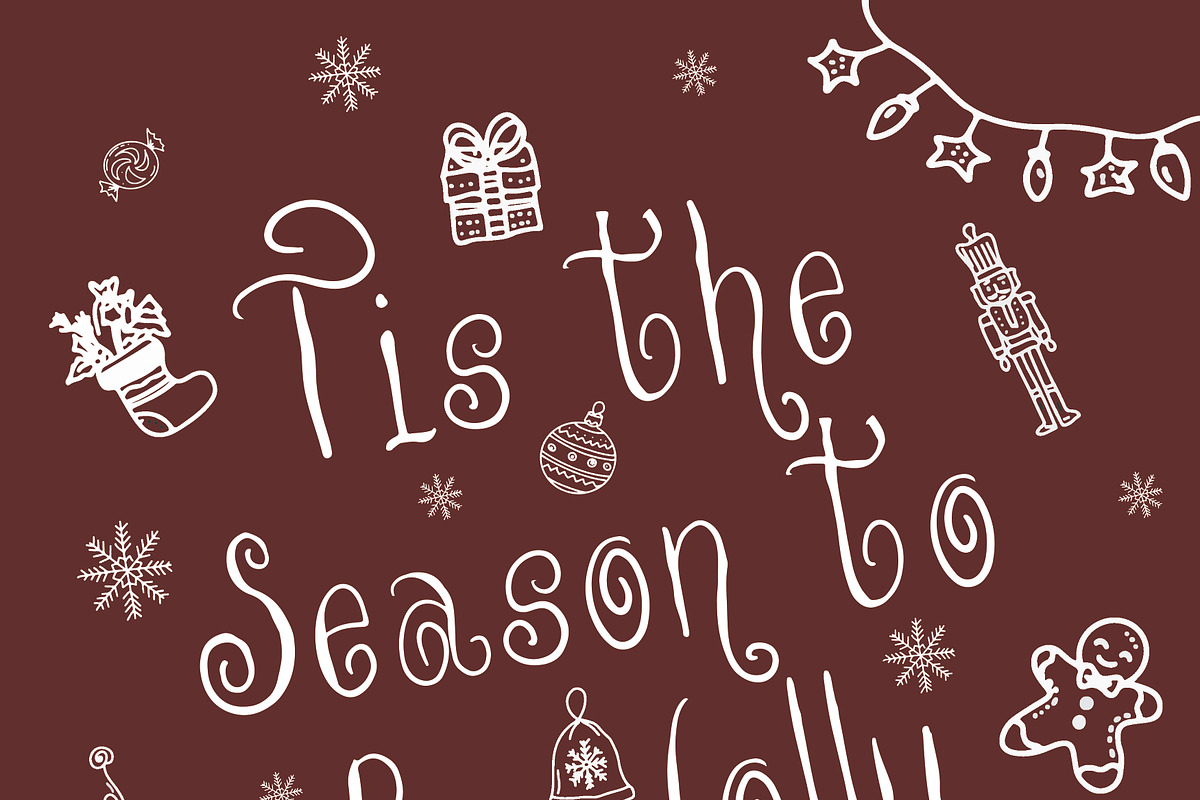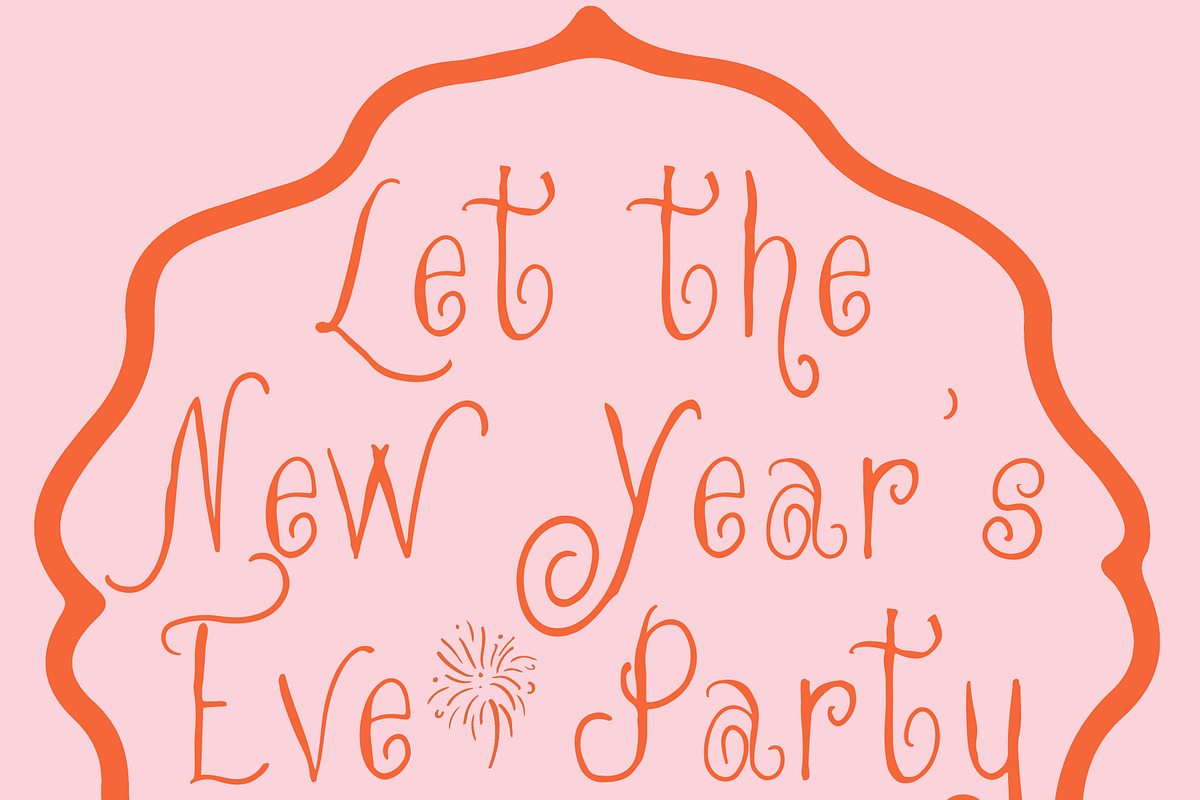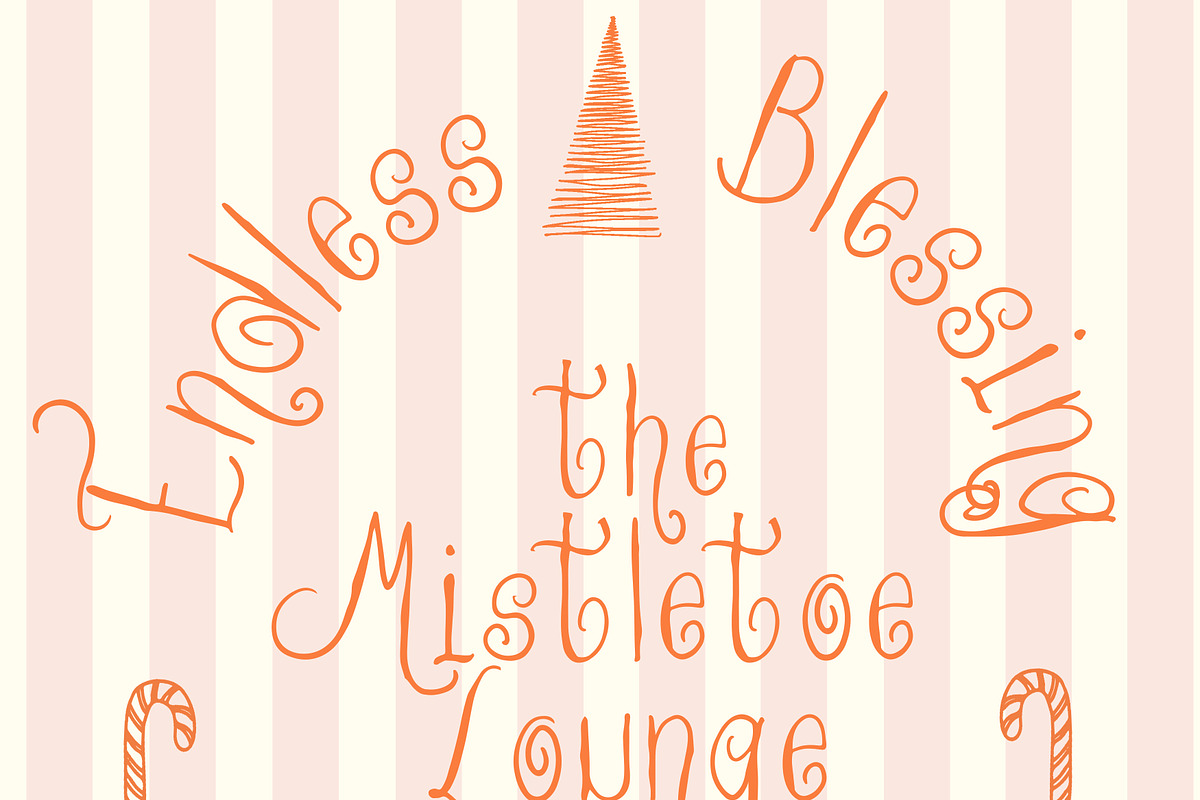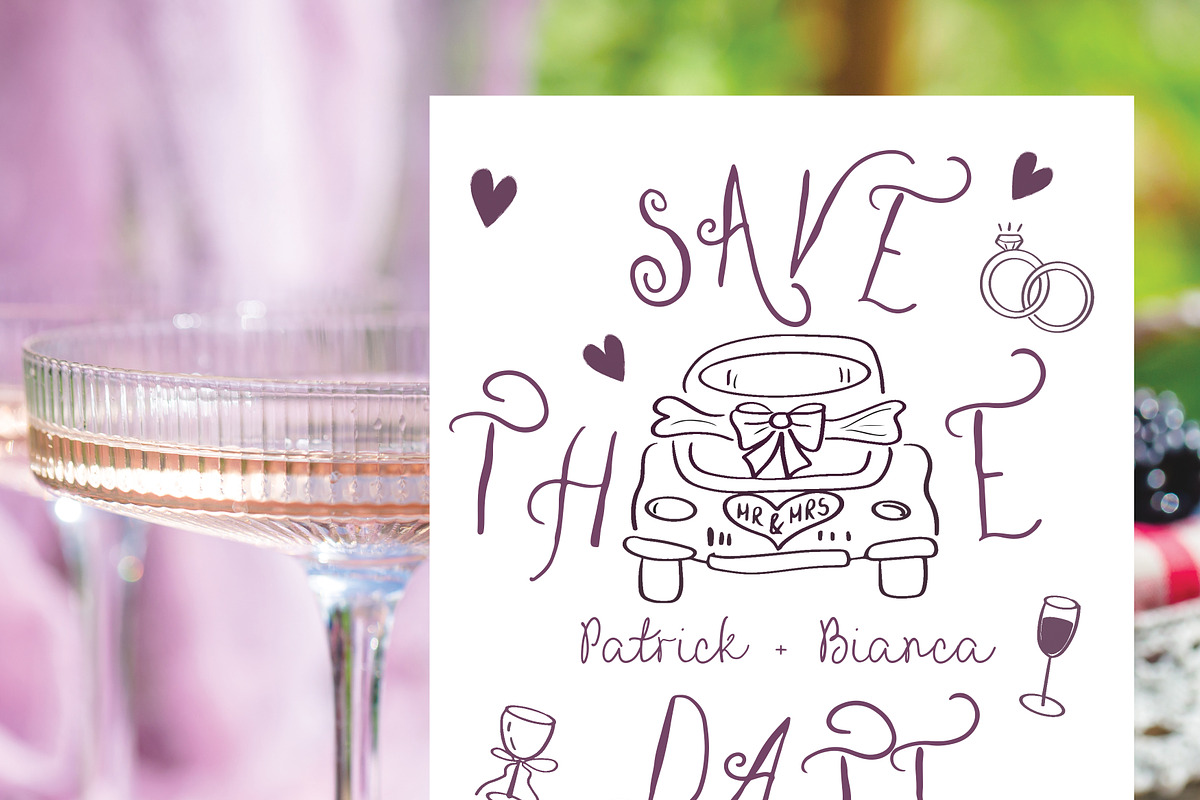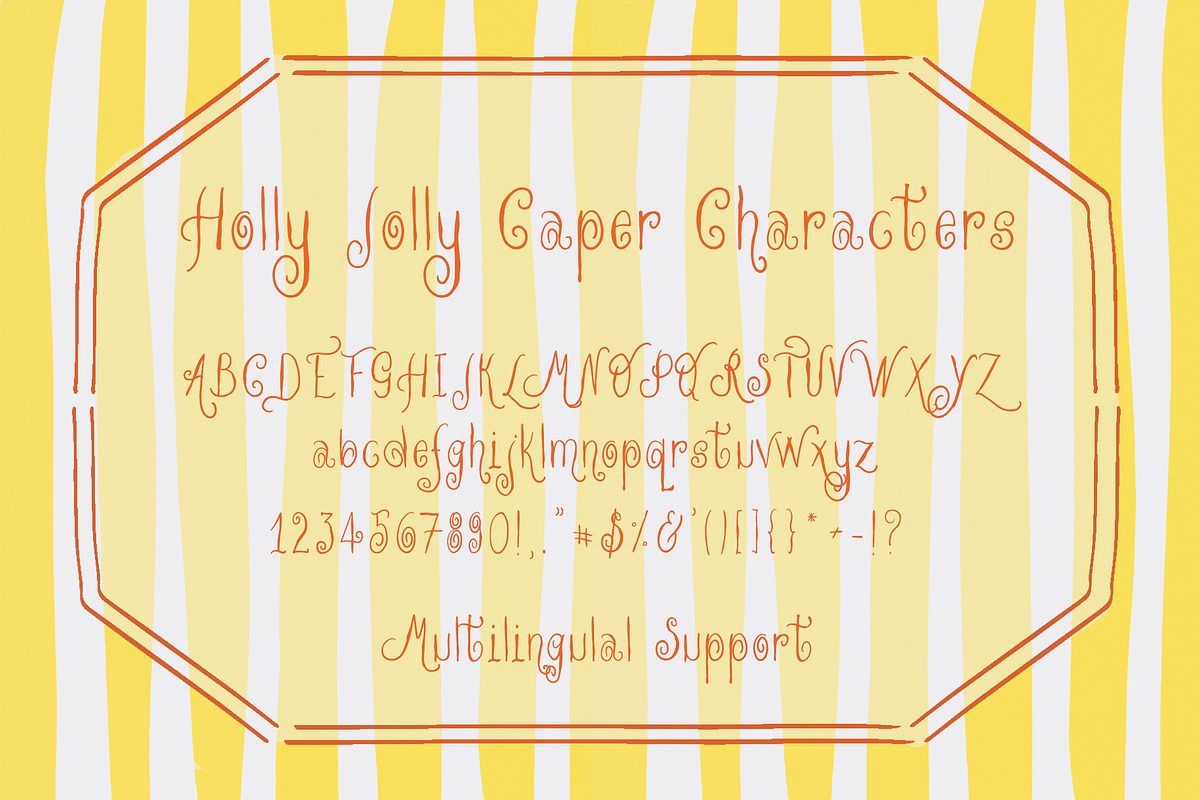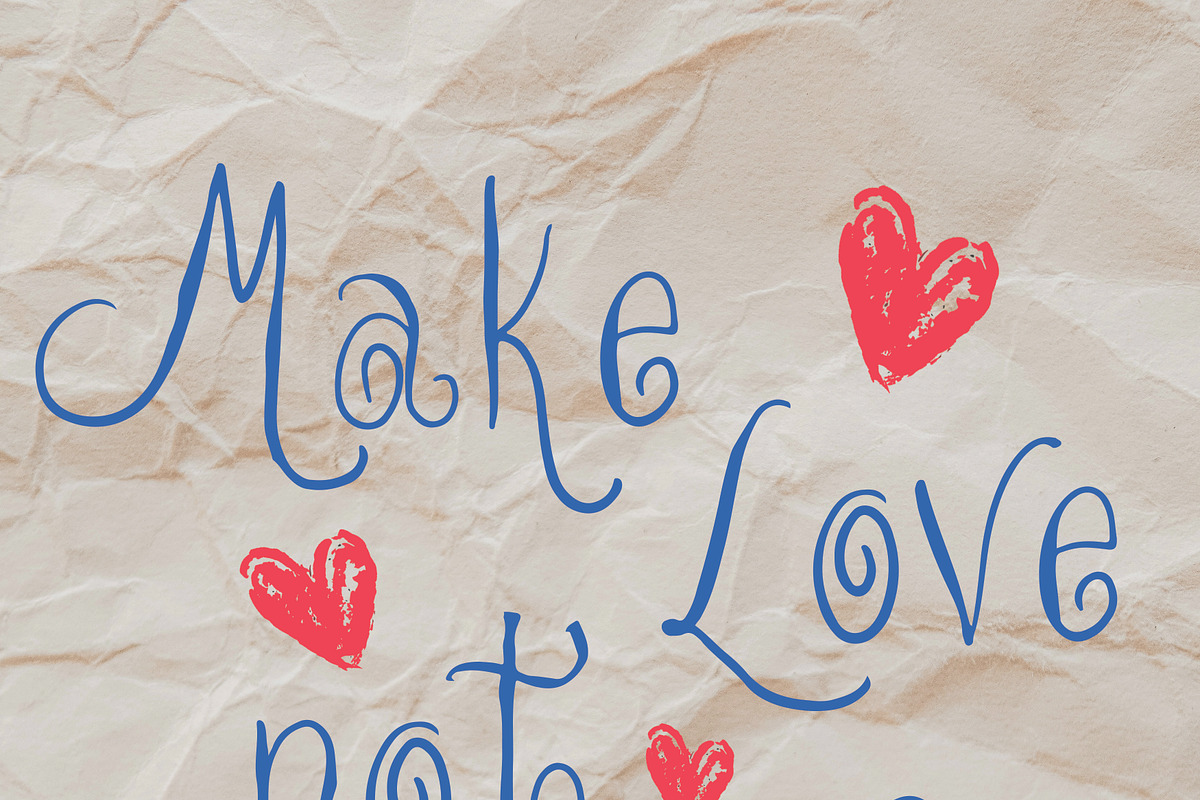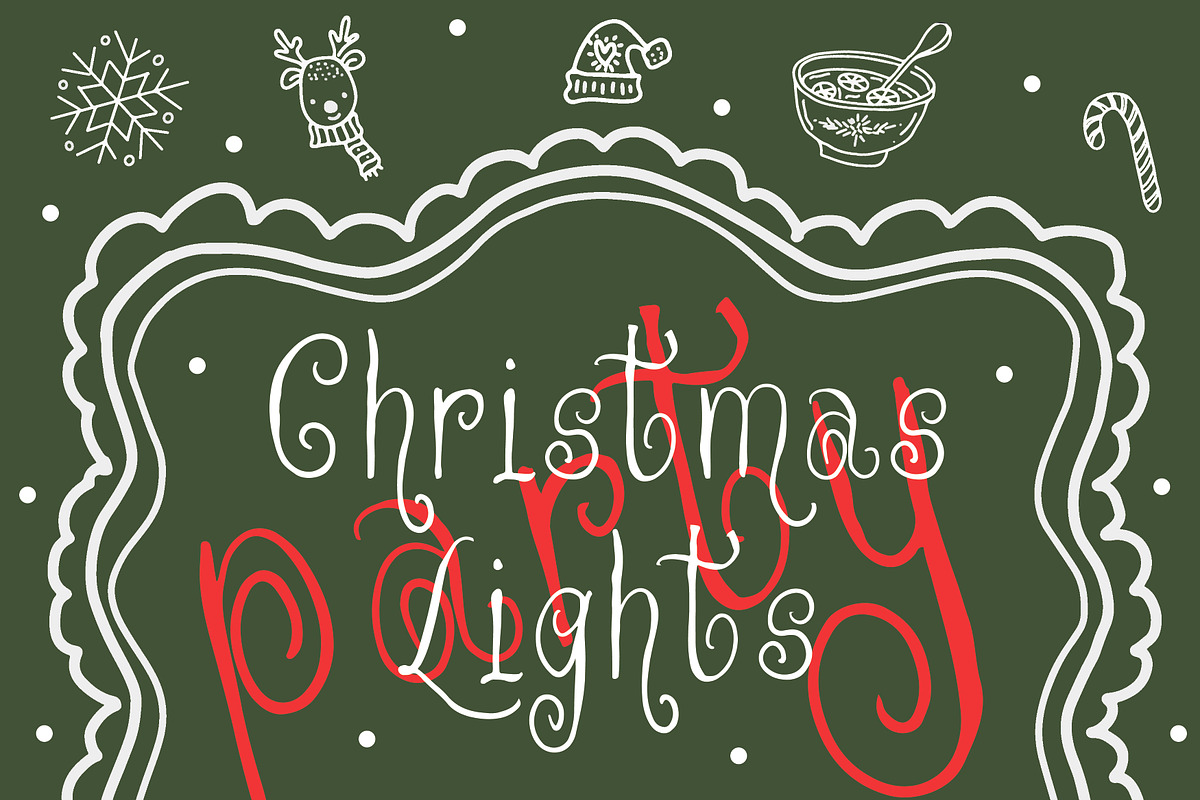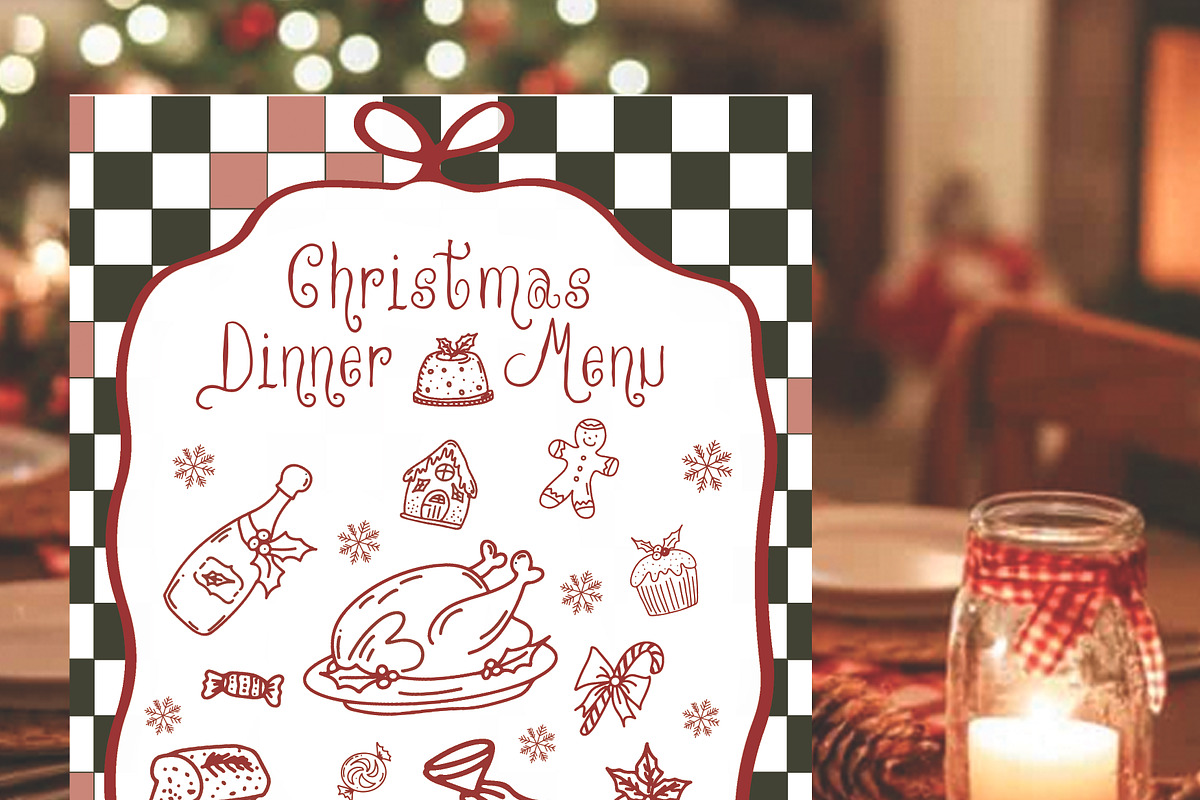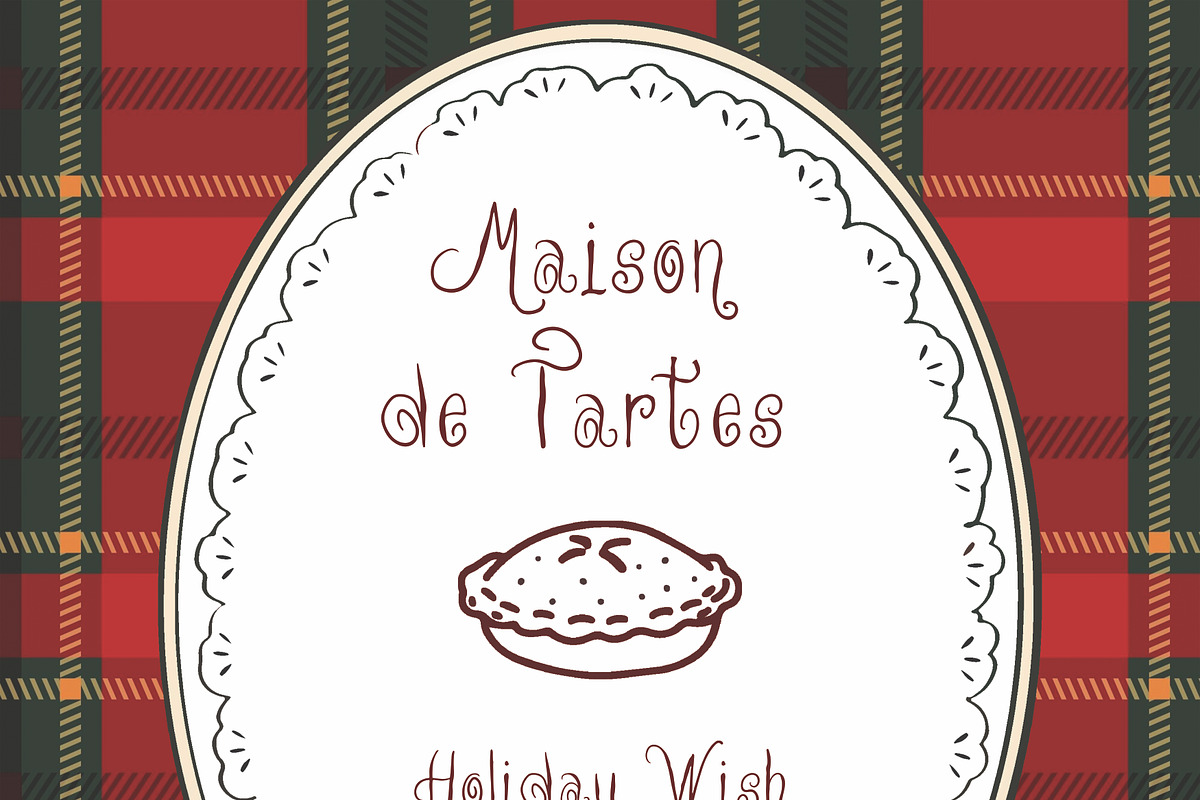
Whimsical Handdrawn Holly Jolly Font
Holly Jolly Caper Whimsical Script Font, Hand Drawn Christmas Font, Procreate Font, Canva Font, Retro Holiday Lettering, Cute Festive Font
Get ready to rock around the Christmas tree with a font that just can’t sit still! Holly Jolly Caper delightfully curly lines and shaky, musical rhythm bring a playful, dancing energy to all your festive designs. Whether you want to add a touch of retro holiday cheer or a whimsical winter vibe, this typeface sings on every page.
This playful fun hand drawn script is the perfect choice for creating standout holiday greeting cards, stationery, invitations, menus, festive packaging, Christmas t-shirts, social media graphics, whimsical children's book title and much more. All the quirks, uneven lines, and imperfect curves recreate a joyful handwriting that feels like a happy Christmas carol written in a rush to catch Santa.